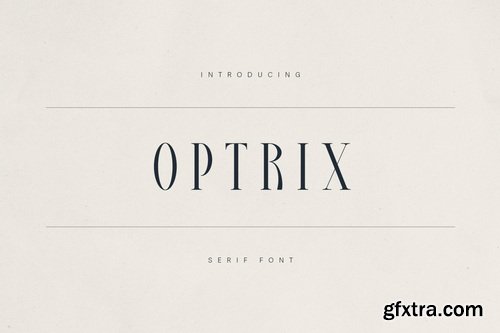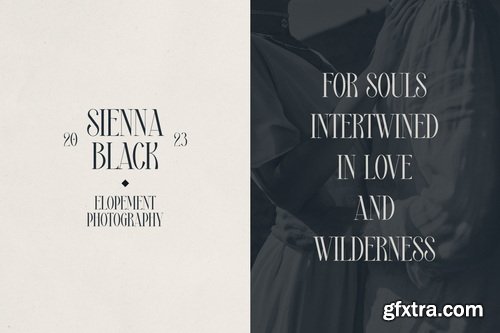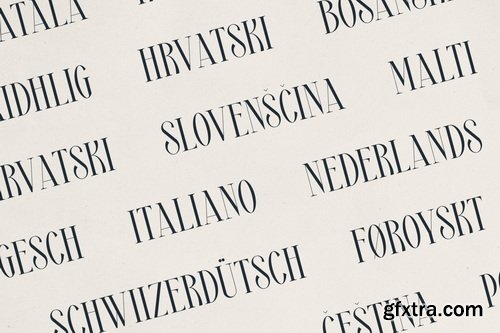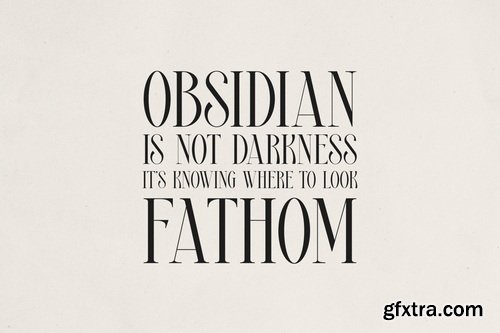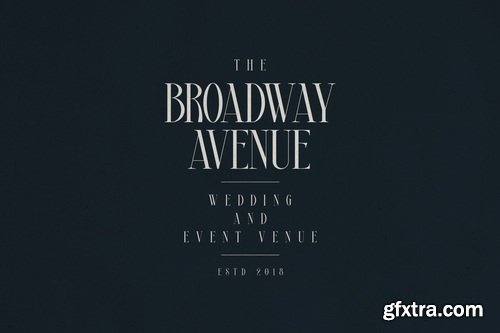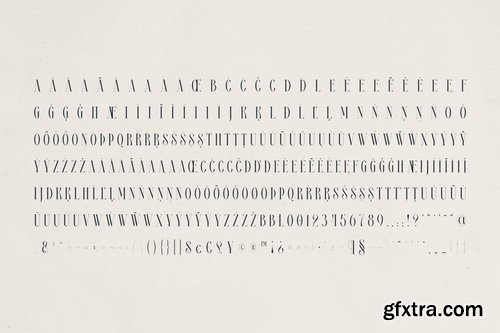
CreativeMarket - Optrix - Elegant & Modern Serif
- Optrix is a refined serif typeface designed to bring sophistication and charm to your creative projects. With its high contrast strokes, elongated letterforms, and stylish curves, Optrix blends classic editorial flair with contemporary elegance—perfect for luxury branding, wedding stationery, high-end packaging, editorial design, and boutique visual identities.
- Crafted for designers seeking a balance of drama and readability, Optrix thrives in headlines, logos, and display text where elegance meets personality. Each character is thoughtfully designed to evoke emotion while maintaining a strong and confident presence.